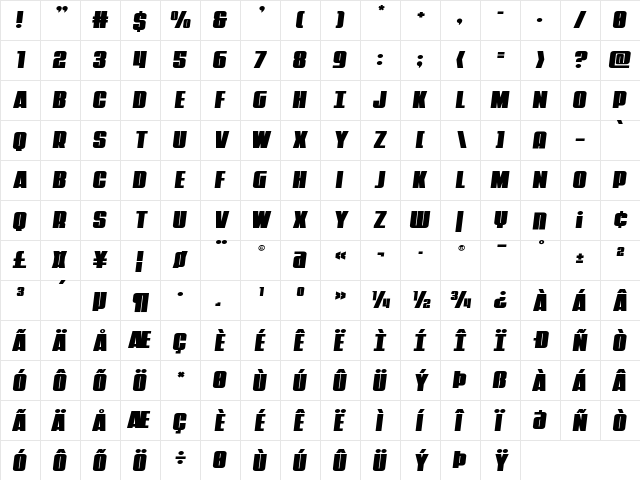
Punch Expanded Semi-Italic Regular Font Preview
Punch Expanded Semi-Italic Regular
Punch Expanded Semi-Italic Regular Font Details
Design Context for Punch Expanded Semi-Italic Typeface
Punch Expanded Semi-Italic is a composed and adaptable typeface that performs quietly and consistently across a wide range of design contexts. The dynamic lean of this cut emphasises speed and emphasis in any layout.